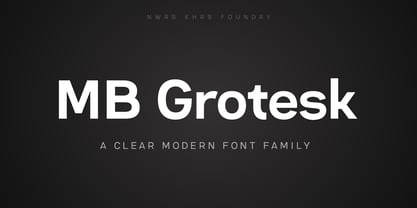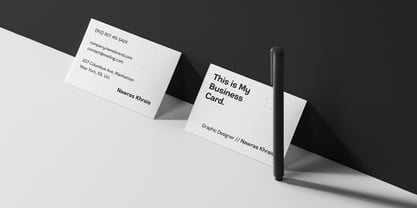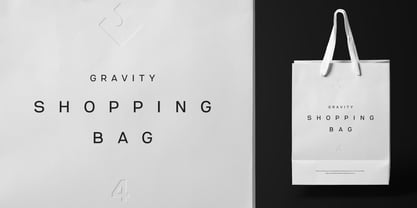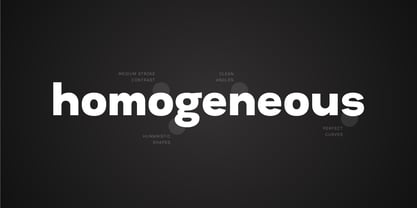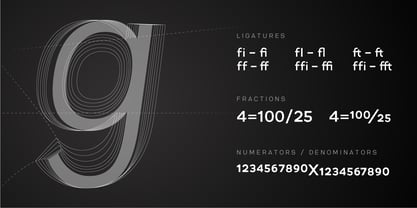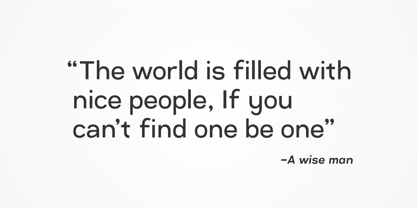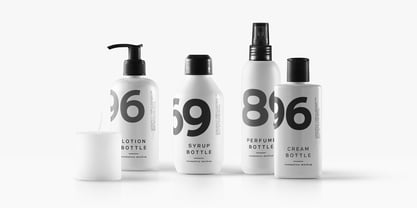
MB Grotesk Font
This MB Grotesk Font is perfect for corporate branding, architectural presentations, minimalist web design, editorial layouts, tech company logos, mobile app interfaces, product catalogs, signage systems, annual reports, and contemporary poster designs.
What makes this MB Grotesk Font exciting is its exceptional geometric precision combined with subtle humanistic warmth. The font features perfectly balanced letterforms with optimized spacing that creates outstanding readability across all platforms. Its contemporary edge and professional appearance make it an ideal choice for brands seeking to convey innovation and reliability simultaneously.
The MB Grotesk Font family includes comprehensive weight variations from Thin to Black, complete with matching italic styles. This extensive font family provides designers with unlimited creative possibilities for establishing strong typographic hierarchies and maintaining visual consistency throughout complex design projects.
Modern businesses and creative agencies consistently choose MB Grotesk Font Free Download for its remarkable versatility and timeless appeal. This font's clean aesthetic perfectly captures the essence of contemporary design while ensuring maximum legibility in both digital and print applications, making it invaluable for cross-platform branding initiatives.
The structural integrity of MB Grotesk Font reflects meticulous attention to detail in every character. Its refined letterforms exhibit consistent stroke weights and carefully crafted curves that enhance the overall reading experience. This technical excellence ensures that the font performs flawlessly whether used in large-scale environmental graphics or detailed typography work.
Professional typographers recognize MB Grotesk Font as an exceptional solution for projects requiring both functionality and aesthetic sophistication. The font's neutral character allows it to adapt seamlessly to various brand personalities while maintaining its distinctive identity, making it a reliable choice for long-term branding strategies.
The versatile nature of MB Grotesk Font extends beyond traditional applications into emerging digital platforms and interactive media. Its optimized rendering capabilities ensure consistent performance across different screen resolutions and devices, while its print quality remains uncompromised in high-end publishing applications.
Whether developing a startup's visual identity or refreshing an established brand's typography, MB Grotesk Font Free Download delivers the professional quality and creative flexibility that modern design projects demand, establishing itself as an essential tool for contemporary graphic design excellence.